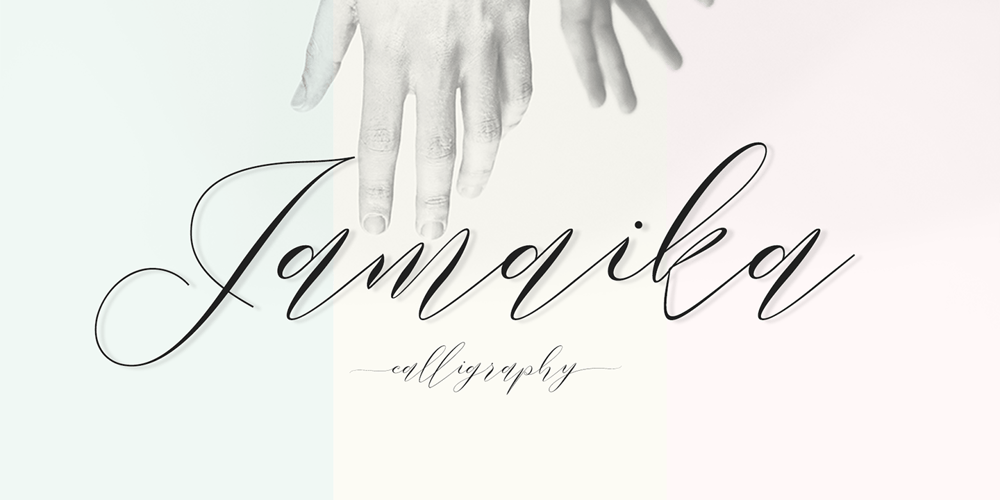
Jamaika Font Family was designed by Ayi Teiry and published by eyetype. Jamaika contains 1 styles and family package options. Jamaika is a font scrip, so, font script that is beautiful and unique, it is a model of modern calligraphy typefaces, in combination with a calligraphy writing style. Specific OpenType features include contextual alternates, stylistic alternates, initial and final forms, multiple alternate glyphs for many letters (accessed through the glyphs panel), multilingual support (including multiple currency symbols), ligatures, standard numbers. Perhaps the most fun thing about Jamaika is that it includes multiple versions of all ascending and descending letters, making it lots of fun to play with layouts and compositions.Font features include: Standard ligatures Initial Alternates Terminal Alternates Can be used for various purposes. such as headings, logos, wedding invitation, t-shirt, letterhead, signage, lable, news, posters, badges etc. The OpenType features can be very easily accessed by using OpenType-savvy programs such as Adobe Photo Shop, Adobe Illustrator, Adobe InDesign and CorelDraw X6-X7, You can also access most most of these awesome features in Microsoft Word and other similar programs